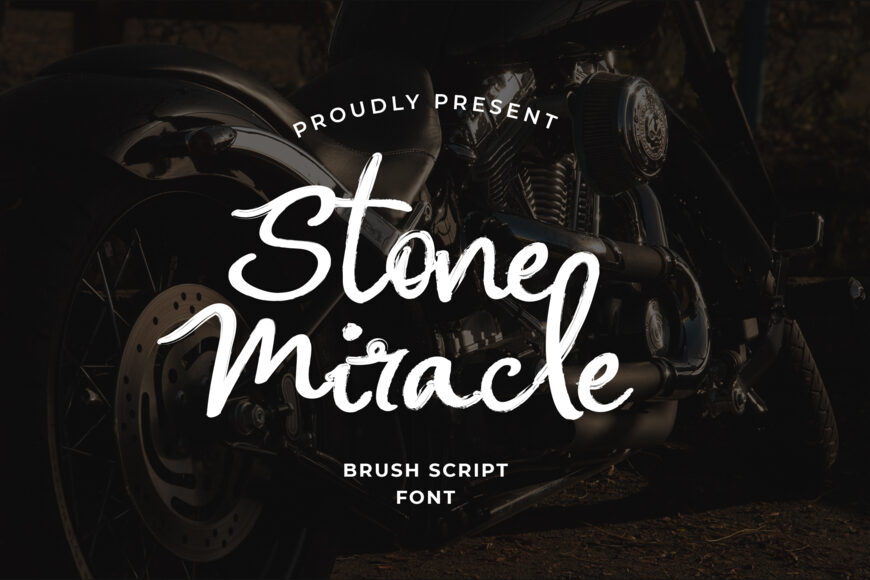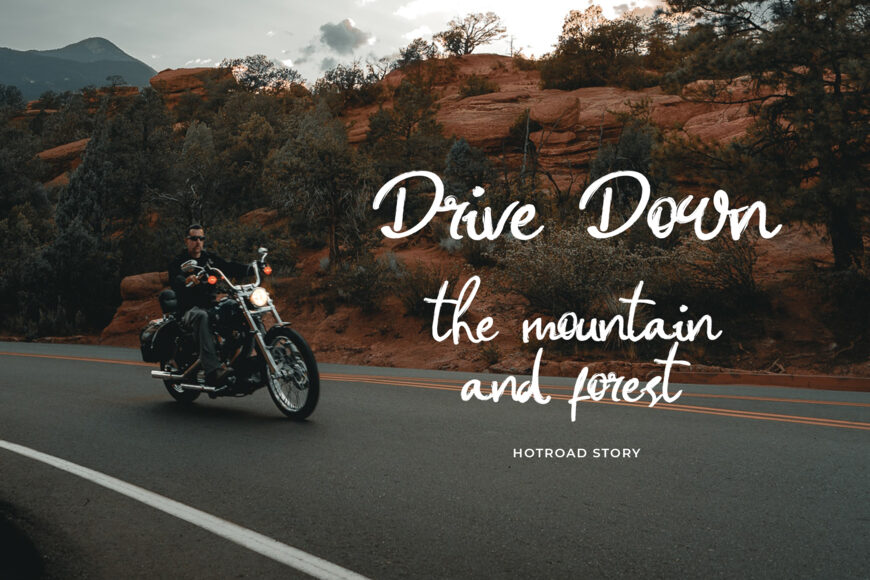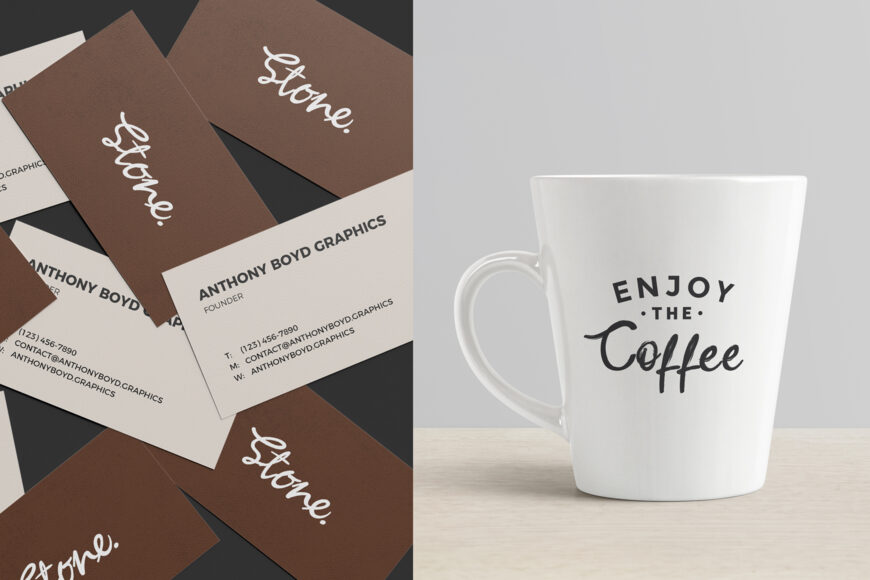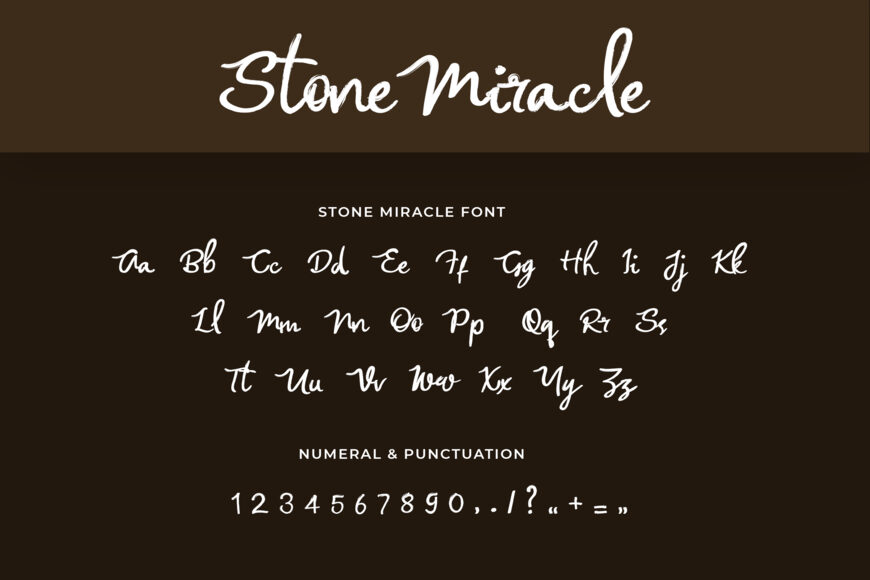
Stone Miracle Font
Stone Miracle Font is a modern brush script font featuring elegant handwritten strokes, natural textures, and a slightly rough artistic finish.
Its flowing letterforms create a stylish and expressive look, making it ideal for logos, branding, social media graphics, invitations, quotes, posters, and packaging designs. With its blend of sophistication and creativity, this font adds a unique, personal touch to both short titles and decorative text projects.